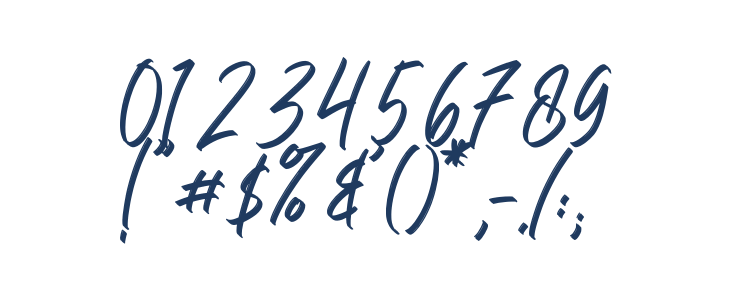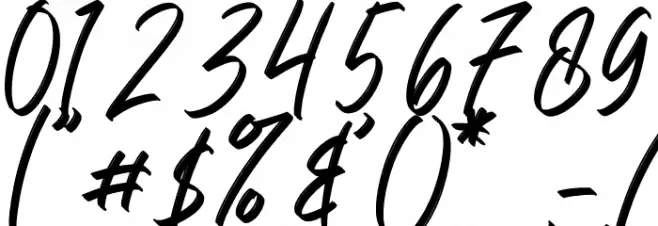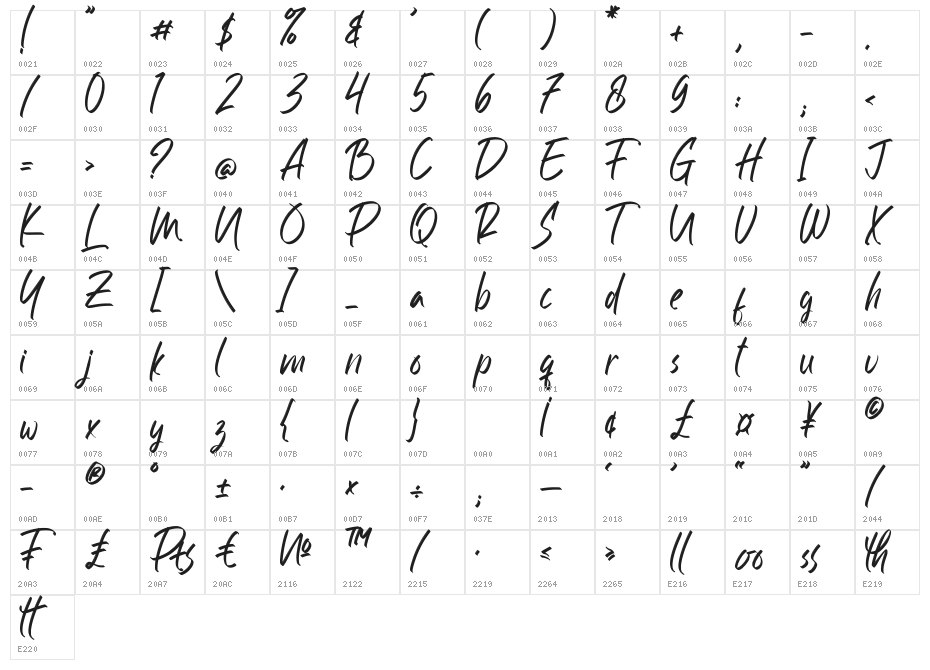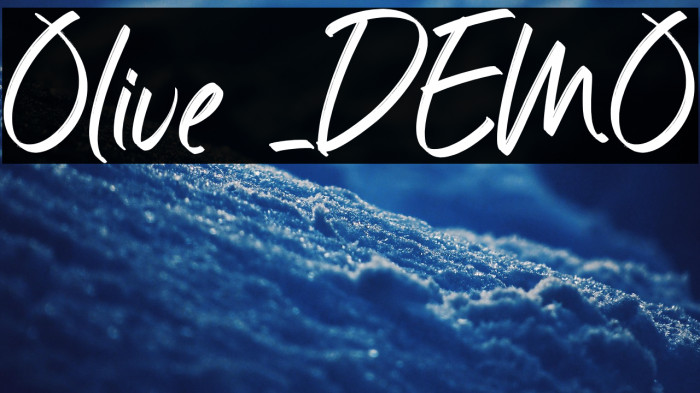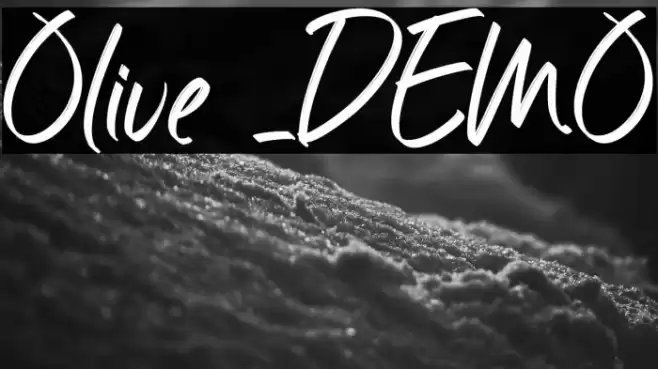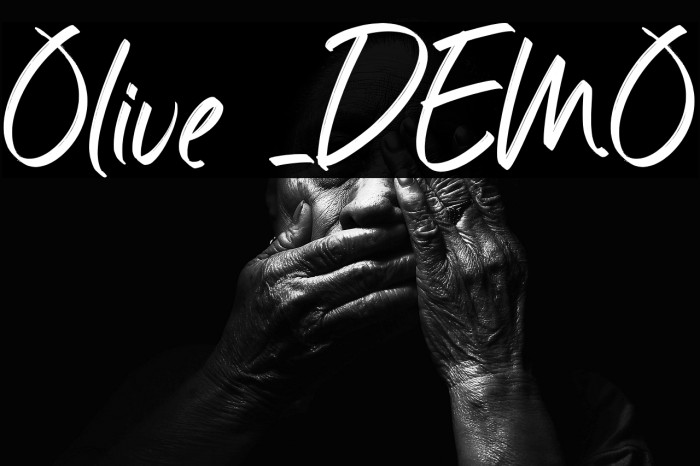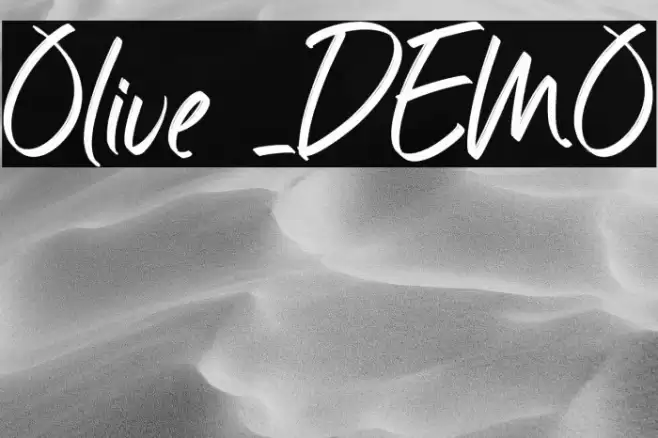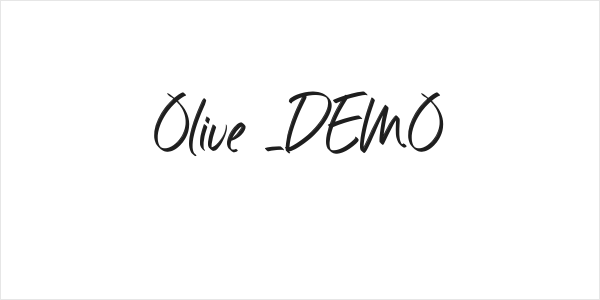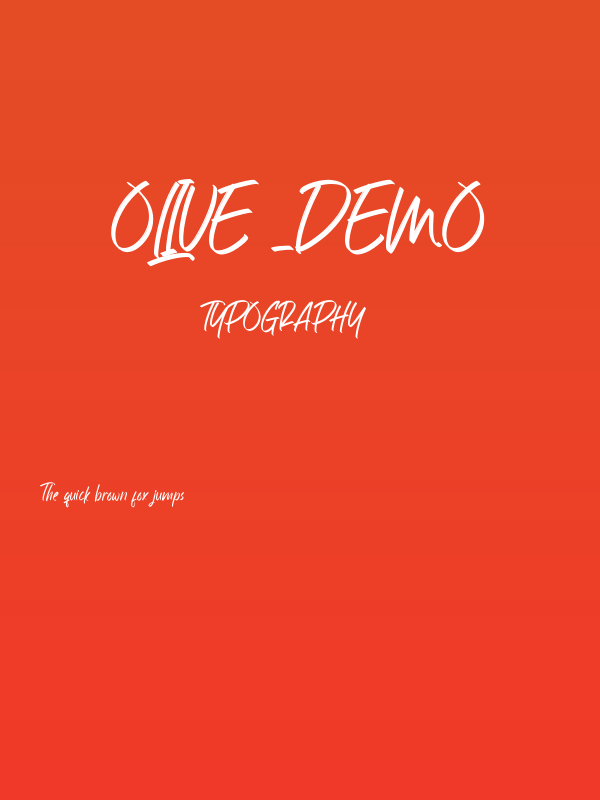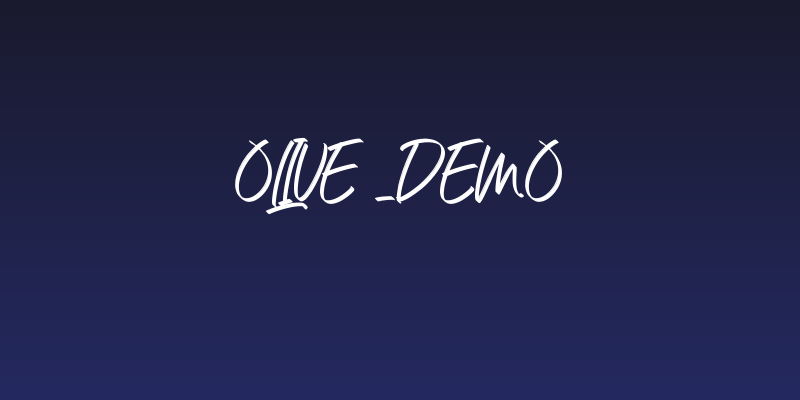
Olive _DEMO Font
Olive _DEMO Description
This font exudes a dynamic and energetic feel, characterized by its bold and expressive strokes. The letters are crafted with a fluid, handwritten style that conveys a sense of movement and spontaneity. Each character is distinct, with varying stroke widths that add to the overall vibrancy of the design. The uppercase letters are tall and commanding, while the lowercase letters maintain a consistent flow, enhancing readability. Numbers and special characters are integrated seamlessly, maintaining the font's lively aesthetic. This font is perfect for projects that require a personal touch or a creative flair.